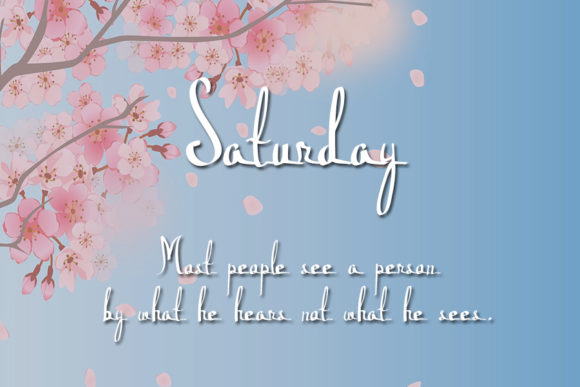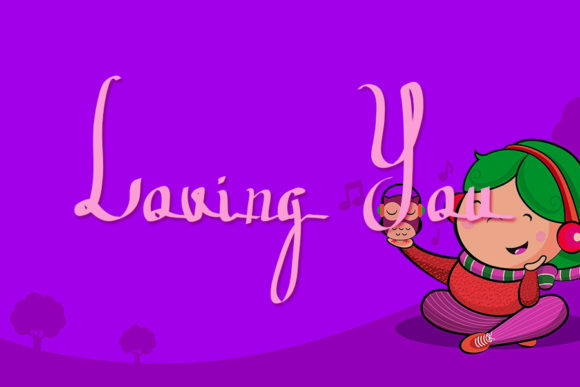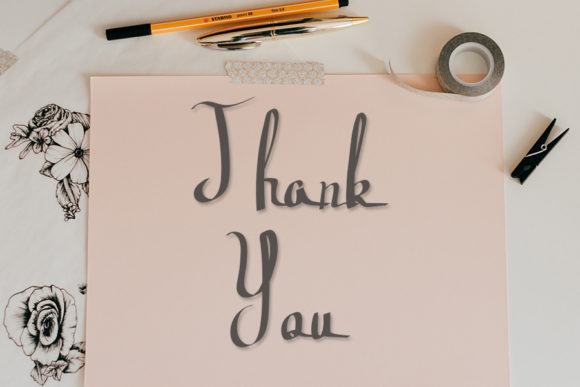
Introduction to Rafaella Font
As a designer, have you ever stared at a blank canvas, eager to bring your creative vision to life? The spark of inspiration is there, but something’s missing – the perfect font to set the tone for your project. That’s where Rafaella Font comes in, a stunning script font that’s sure to elevate your design to new heights.
With its intricate details and delicate lines, Rafaella Font is a valuable resource for any designer looking to add a touch of sophistication to their creative project. Whether you’re working on a logo, brochure, or website, this high-quality font is sure to make your design stand out from the crowd.
Key Features of Rafaella Font
- Unique, elegant script font with a transparent background, ideal for adding a touch of sophistication.
- Features a beautiful, flowing script style, perfect for wedding invitations, quotes, and other special occasions.
Honest Review: Rafaella Font
I recently stumbled upon the Rafaella Font, and I must say it’s been a game-changer for my creative projects. This high-quality font is a great addition to any design resource.
What works well about Rafaella Font is its elegant and sophisticated design, perfect for a variety of creative projects. The transparent background makes it easy to use in different design scenarios, from digital to print materials. I’ve used it for logos, branding, and even wedding invitations, and it always adds a touch of class.
Here are some of its notable features:
- Perfect for logos, branding, and print materials
⚠️ One limitation of the Rafaella Font is that it may not be suitable for informal or casual designs. It’s best used for formal or high-end projects where a sophisticated look is required.
Overall, I’m impressed with the Rafaella Font, and I highly recommend it to designers looking for a high-quality font for their creative projects. It’s a valuable addition to any design resource, and I’m sure it will become a favorite among designers.
Tips for Getting the Most Out of Rafaella Font
Common Use Cases for Rafaella Font
Rafaella Font is perfect for a variety of creative projects, including social media graphics, presentations, and documents. It’s also great for creating custom logos, typography, and graphics for websites and marketing materials.